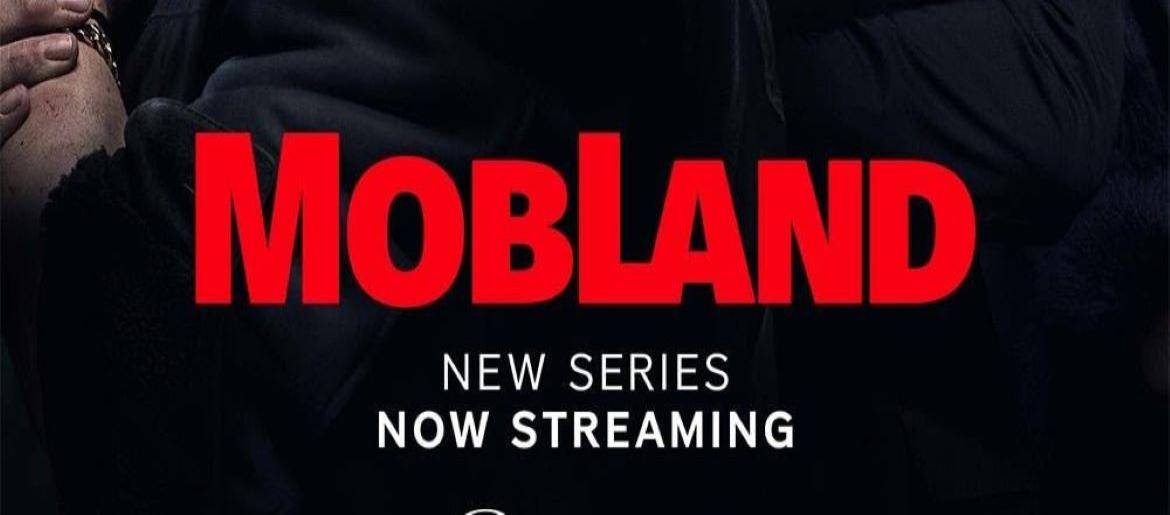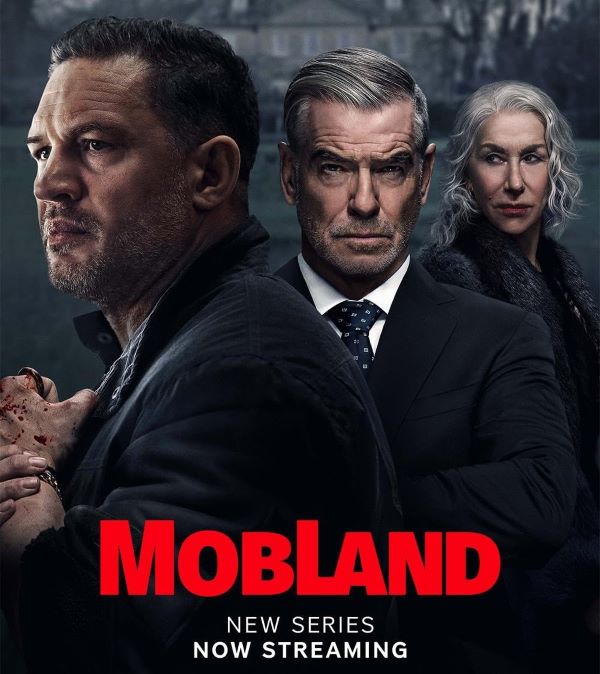
MobLand Font
What is The Font Of MobLand?
The font used in MobLand is most likely Real Head Pro Condensed Black by FontFont, a premium typeface with strong, compact lettering that conveys power and tension—fitting for the series’ gritty crime-drama tone. Although the original font is commercial, we found a free alternative font that closely captures its condensed, high-impact style.
About MobLand
MobLand is a British crime-drama television series created by Ronan Bennett, which premiered in March 2025. Starring Tom Hardy as Harry Da Souza (a fixer for the Harrigan crime family), alongside Pierce Brosnan, Helen Mirren, and Paddy Considine, the story centers on two warring London crime families—the Harrigans and the Stevensons—and the dangerous power struggle that ensues. With ten episodes in its first season, the show blends sharp dialogue, brutal conflict, and lavish settings under the oversight of director Guy Ritchie. The dramatic and tightly structured title font reflects the high-stakes, no-compromise world the characters inhabit.